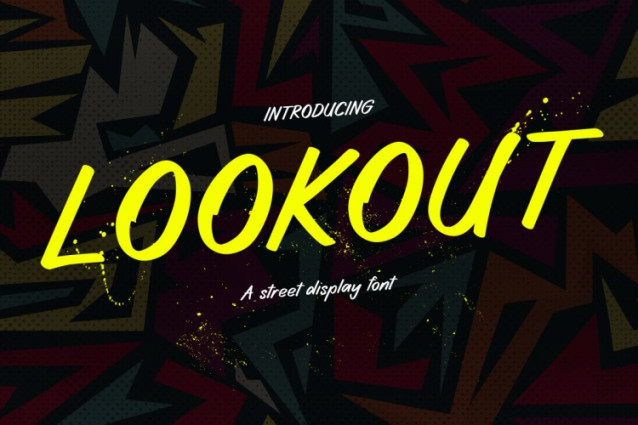
Lookout Font
Lookout Font is a bold, energetic street display font that brings urban art’s essence to your designs. Its playful, powerful letterforms and brush-like strokes capture the raw, expressive nature of graffiti. With a slightly slanted, hand-lettered style and smooth curves, Lookout adds a rebellious, youthful vibe. This font is designed to stand out, whether in digital or print media. Moreover, Lookout’s graffiti-inspired look gives words an urban flair, adding both movement and personality. Use it for posters, logos, or social media graphics, and your message will come to life with vibrant, unique style.
Lookout also offers impressive versatility across creative projects. It blends well with dynamic visuals and bold backgrounds, enhancing text without overpowering other elements. Whether you aim for an edgy, modern feel or a classic street-style vibe, Lookout adds the perfect touch. Its bright and engaging design is ideal for projects that need quick viewer engagement. Beyond just a font, Lookout embodies a creative spirit, turning your text into an eye-catching focal point.